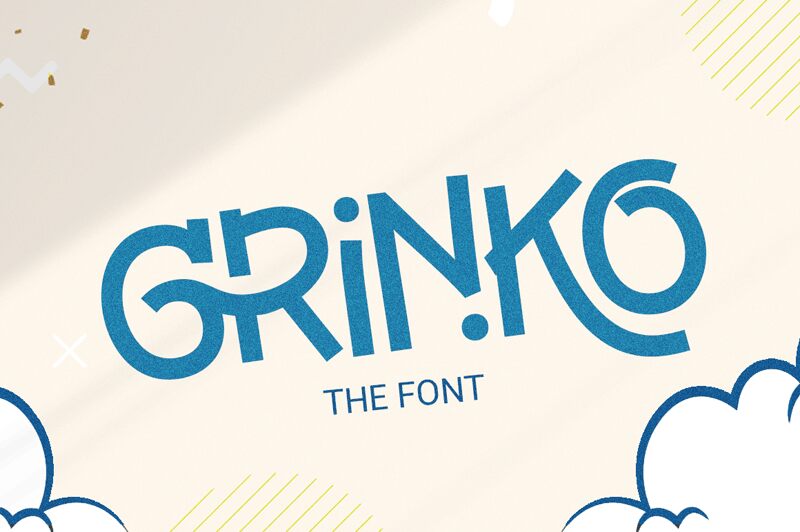
Grinko, crafted by Grontype, is a display font that exudes confidence with its bold and impactful presence. Its strikingly thick strokes and solid structure command attention, making it an ideal choice for headlines that need to stand out. The letters boast a robust construction with subtle yet distinctive details that add character and flair.
This font's pronounced personality makes it well-suited for branding projects, advertising campaigns, and any creative work where a strong visual statement is desired. Whether on a poster or the front page of a magazine, Grinko carries the weight to anchor your design with style and substance.